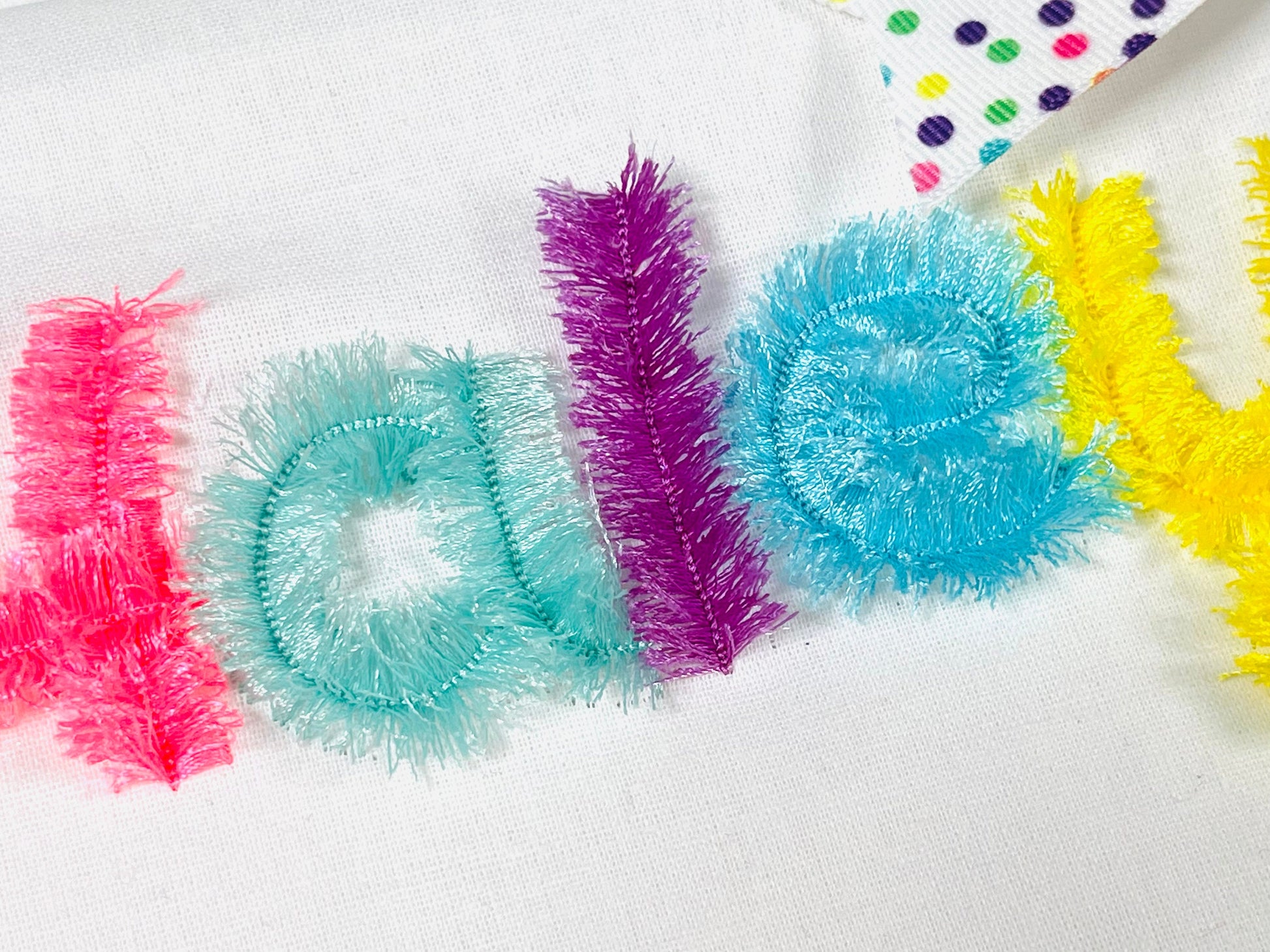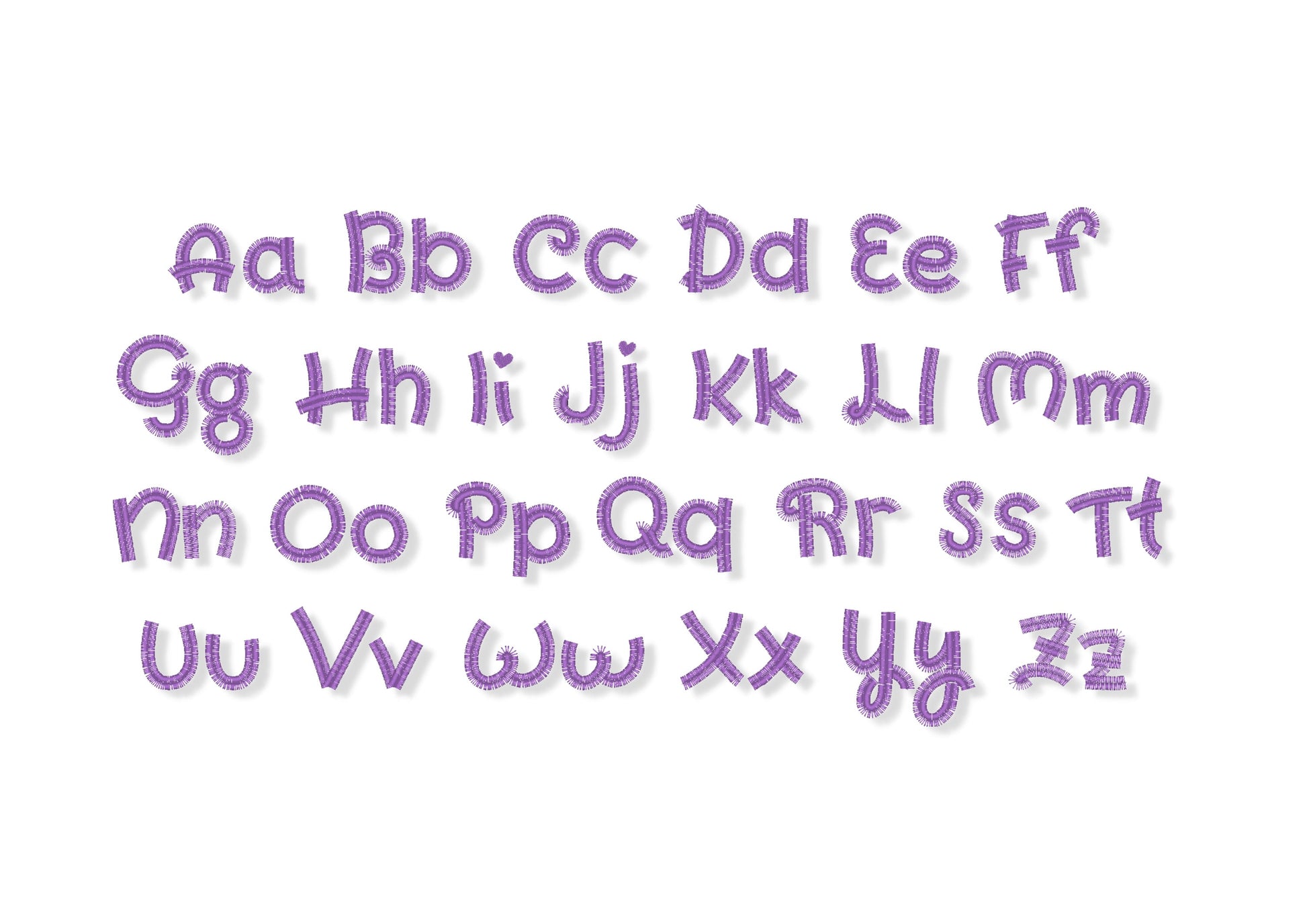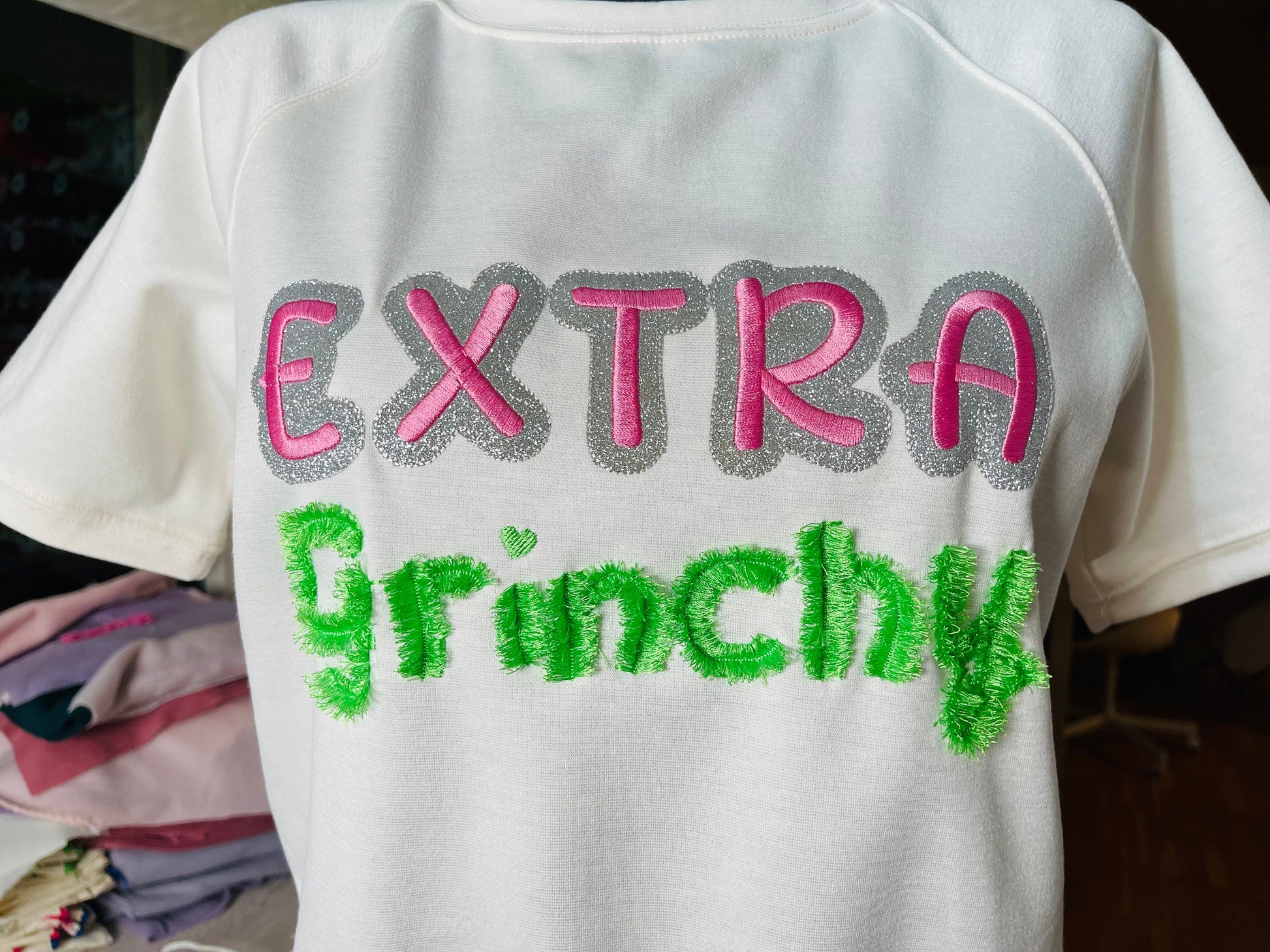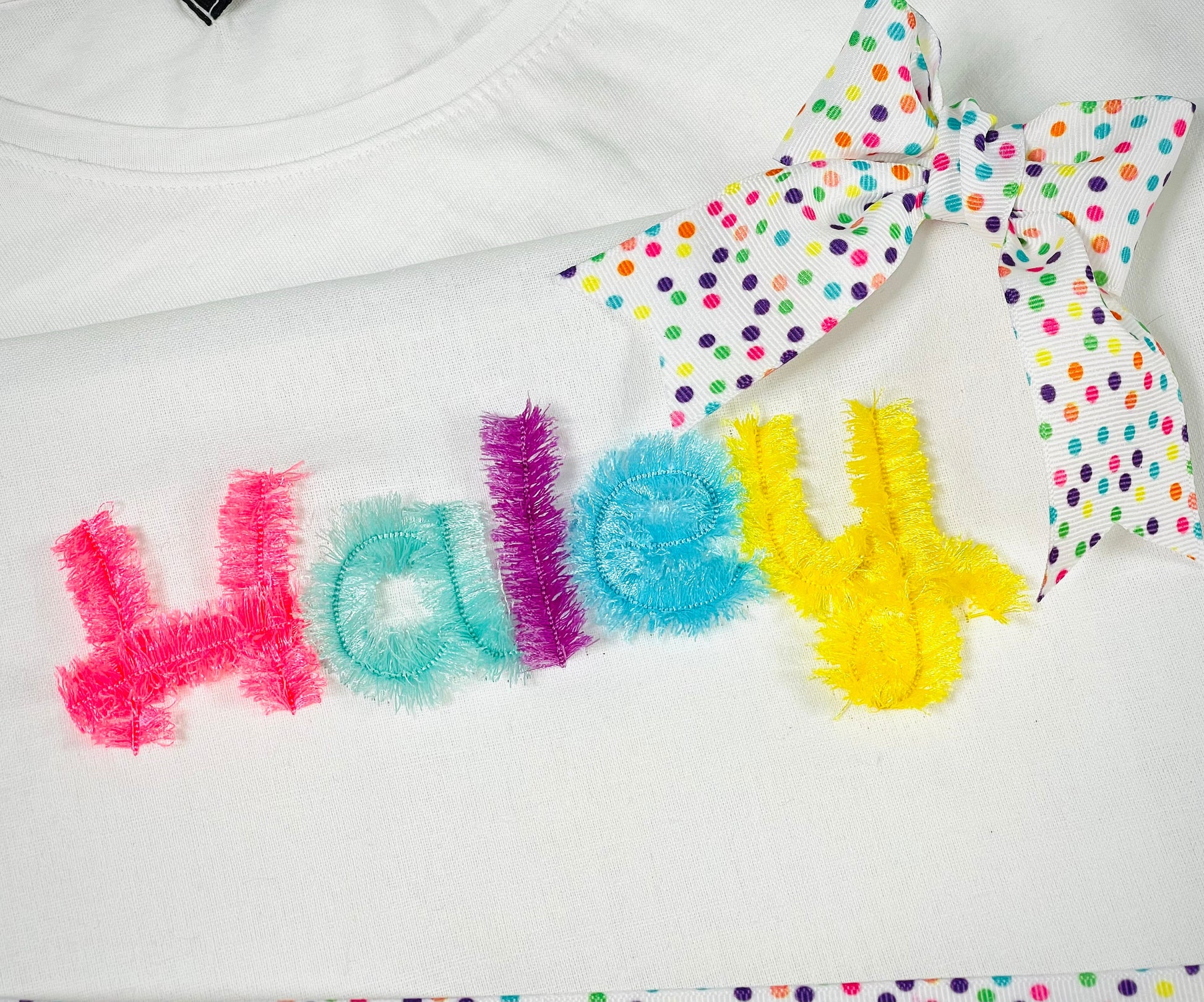
Or click to open the linkA girly, fluffy fringed font for kids' names, monograms, shirts and bags.
Uppercase and lowercase letters, numbers 0 to 9 and an ampersand, in three sizes: 1.5, 2 and 2.5 inches. Large satin stitches are cut from the back and fluffed into fringe, and a tack seam keeps the fringe safe to wash.